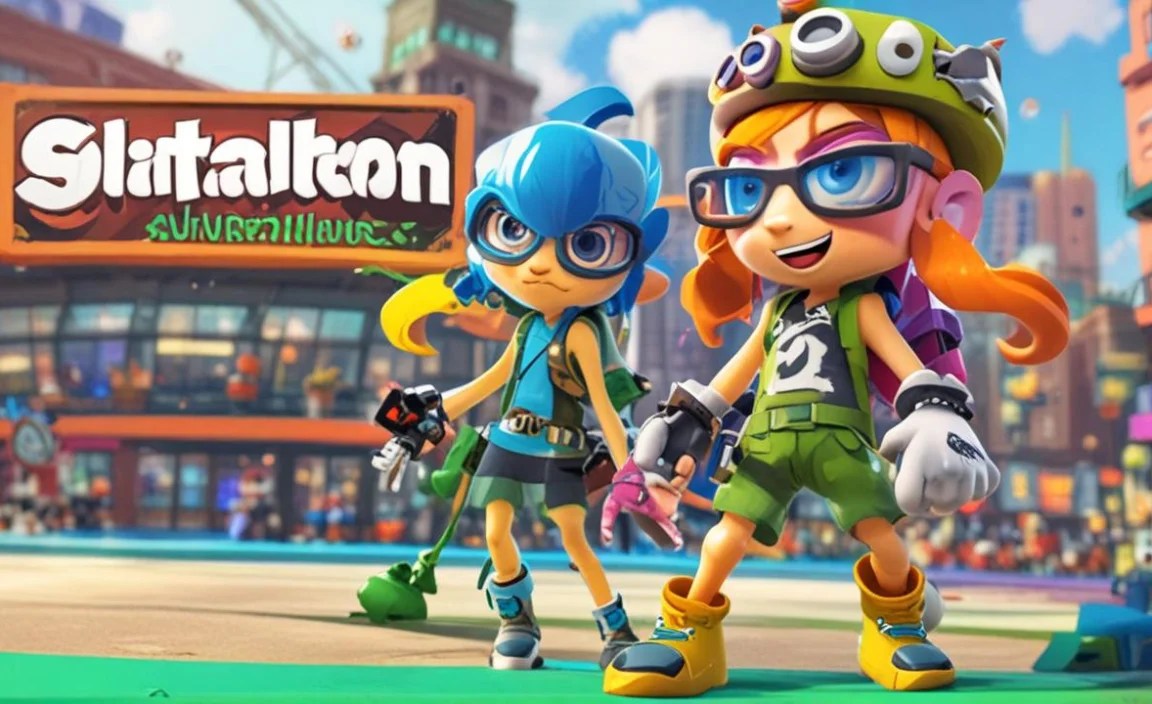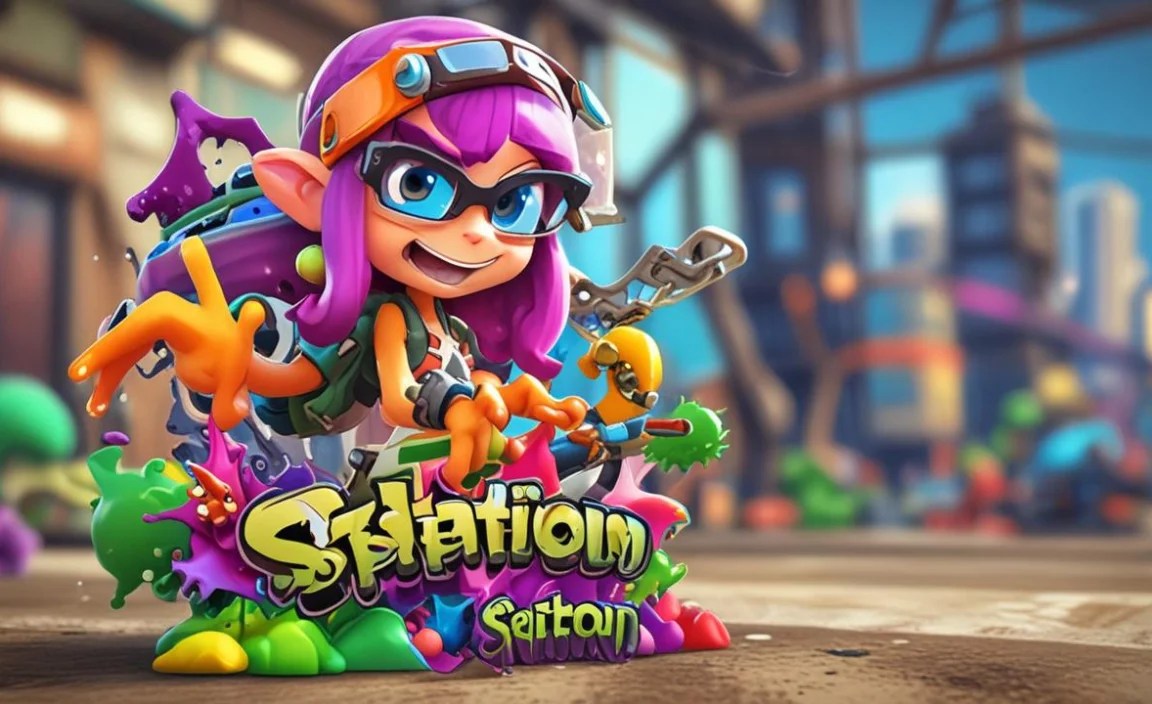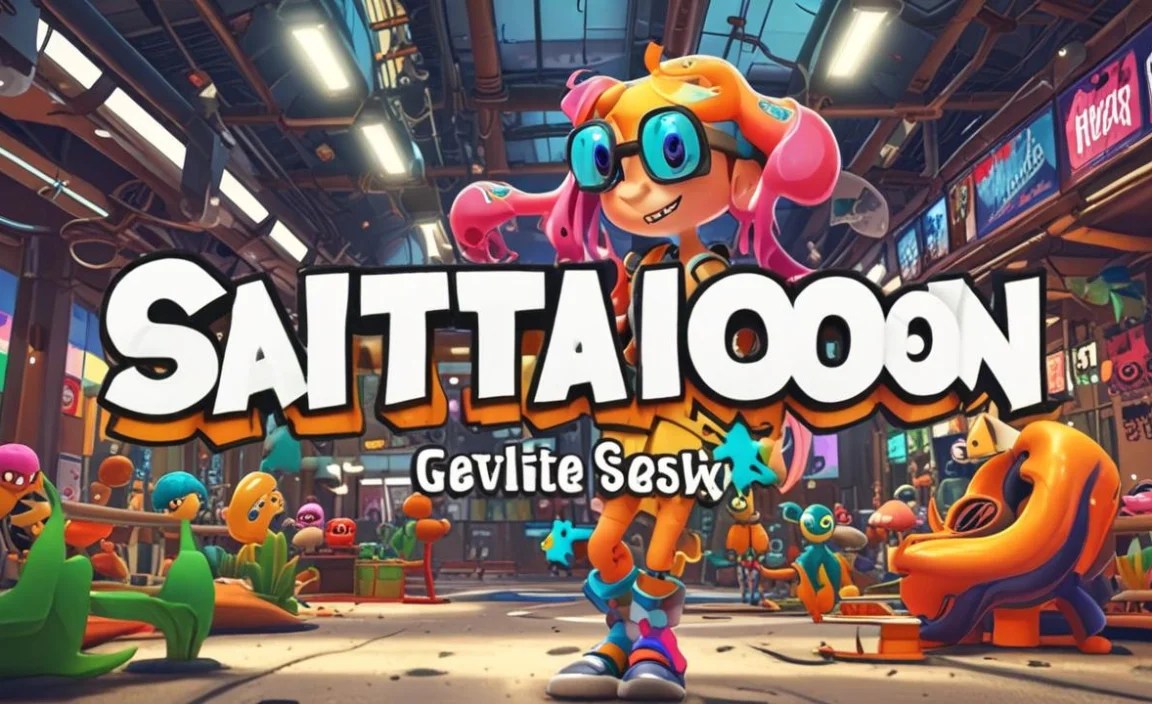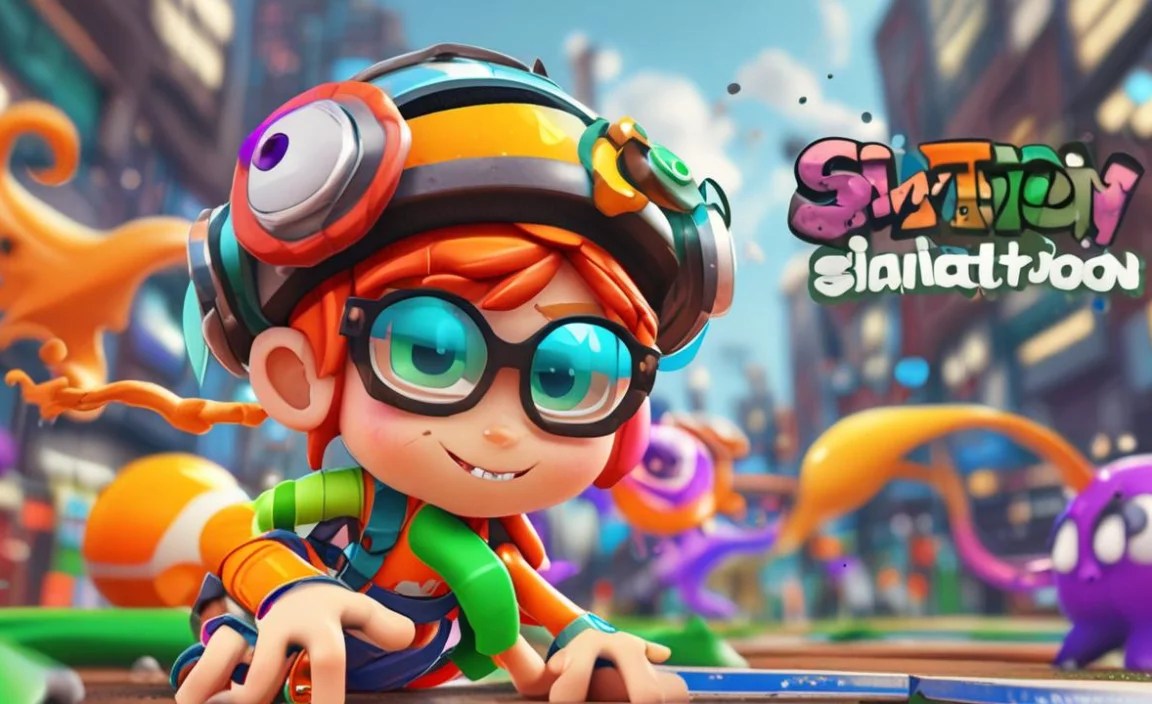
Splatoon is a playful, bold font inspired by Nintendo’s vibrant video game series, Splatoon, featuring characters called Inklings.
Designed for dynamic and colorful designs, Splatoon Font (created by Clark Kent) captures the essence of youthful energy. This free font was released in December 2015 for personal use and has become a popular choice for fans and designers looking to emulate the game’s style.
Splatoon Font Information
| Style | Sans Serif |
| Designer | Clark Kent |
| Type | Display |
Splatoon Font Family Includes
The Splatoon Font family contains one style:
- Splatoon Regular
Where Splatoon Font Is In Use
- High School Posters and Projects: Ideal for projects with a youthful, creative vibe.
- Social Media Designs: Used in memes, targeted advertising, and social posts about games or friendships.
- Custom Hoodies and Apparel: Adds a bold, fun style to clothing.
- Event Invitations: Perfect for themed parties inspired by video games or animated shows.
- Text Graphics: Found in online font generators for creating Splatoon-like text.
Similar Fonts To Splatoon Font
- Futura: Complements Splatoon Font’s boldness with clean, modern appeal.
- Comic Sans Bold: Adds an extra layer of fun for informal or playful designs.
The Splatoon Font embodies the fun, energetic spirit of Nintendo’s Splatoon series. Its bold, playful design makes it ideal for creative projects, from posters and apparel to social media graphics.
Whether you’re a fan of the game or a designer looking for a unique sans-serif typeface, Splatoon Font brings a splash of personality and vibrancy to any design. Its versatility and accessibility make it a fantastic choice for anyone aiming to make their text stand out with a youthful and dynamic flair.
2.What Is The Closest Font To Splatoon?
Dreamland by Jim Parkinson is a close match to the Splatoon logo.
4.Are There Other Fonts Similar To Splatoon Font?
Yes, alternatives include Rounded Sans Serif 7 and Dreamland.
5.How Is Splatoon Font Typically Used?
It’s popular in social media graphics, posters, and event invitations.
6.What Makes Splatoon Font Unique?
Its rounded, bold style grabs attention and mimics the playful energy of the Splatoon game series.